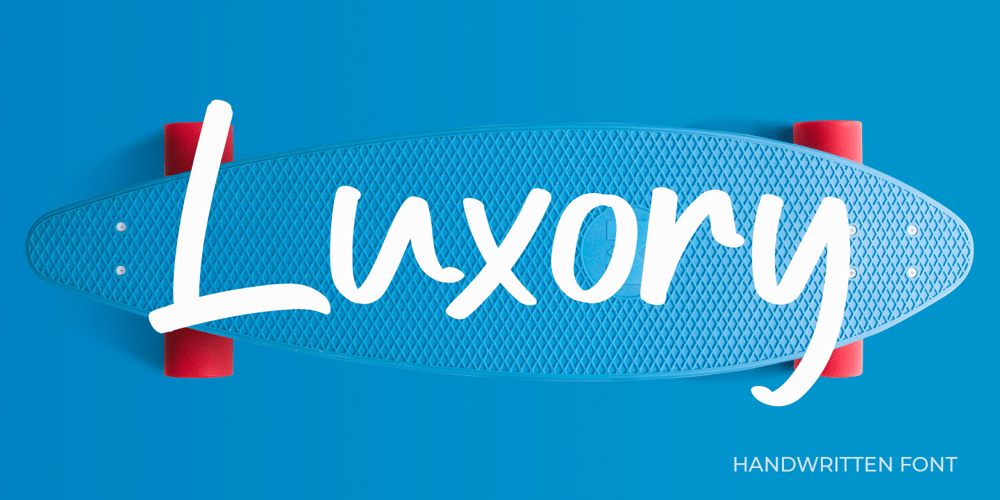
Luxory Font Family was designed by Agam Rahmadan and published by Viswell. Luxory contains 1 styles and family package options. Luxory is a handwritten font made with natural hand strokes. This font is inspired by handwriting made with markers.Luxory features :• Uppercase and Lowercase characters• Numerals & Punctuation• Ligatures• AlternatesIf you have any issues or questions, just let me know agamrahmadan36@gmail.comThanks